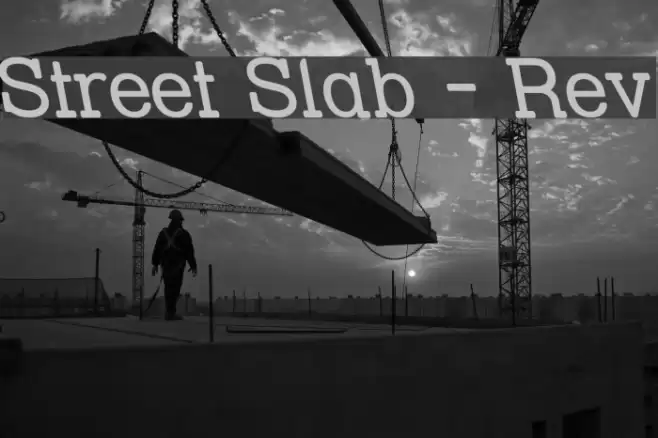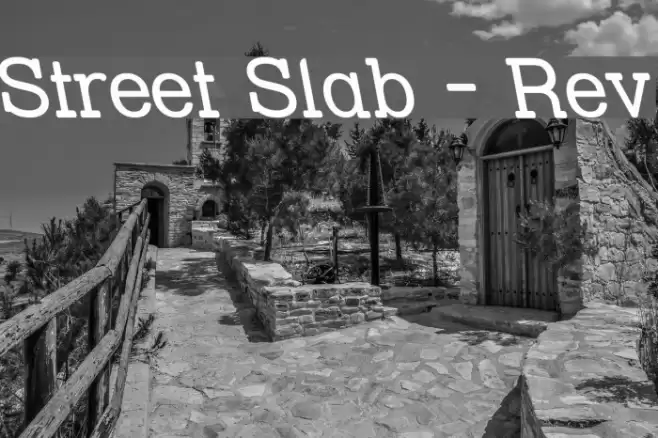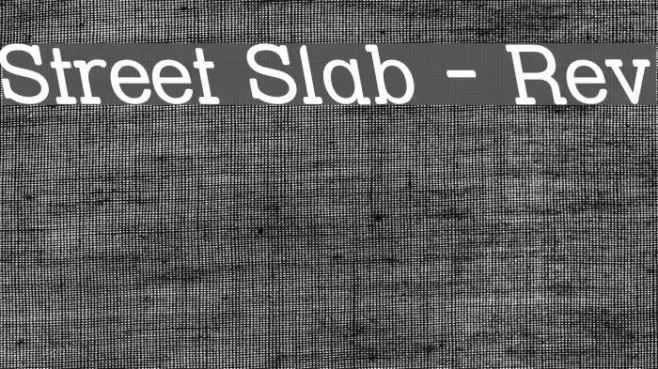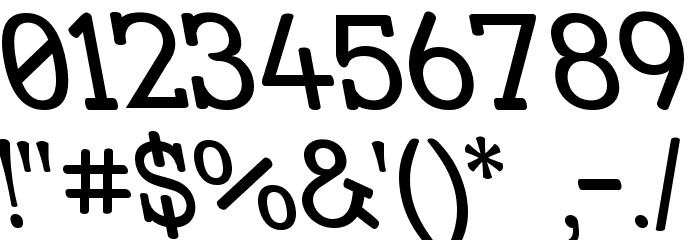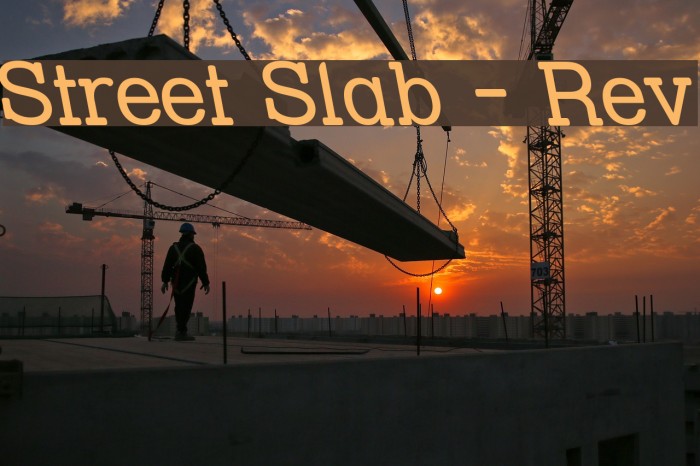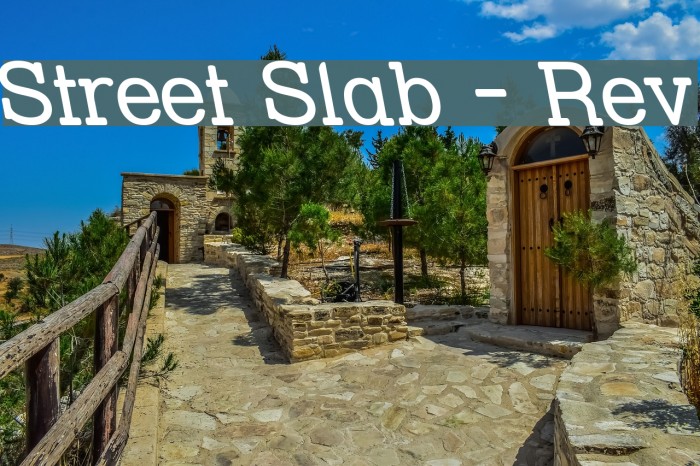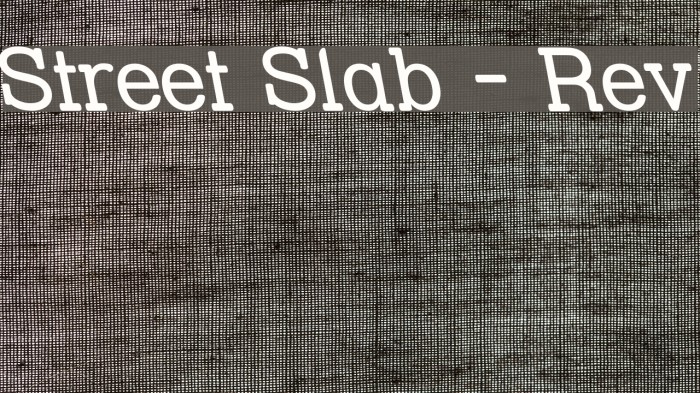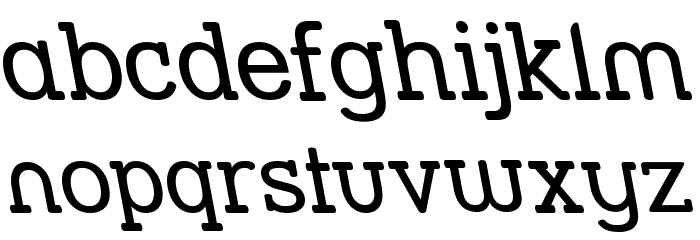
Street Slab - Rev Font
Street Slab - Rev Description
This font features a robust and bold slab serif design, characterized by thick, block-like serifs that give it a strong and authoritative presence. The letters are evenly spaced, providing a clean and organized appearance. The uppercase and lowercase letters maintain a consistent style, with rounded edges that soften the overall look. Numbers and special characters are designed with the same boldness, ensuring readability and impact. This font's style is both modern and classic, making it versatile for various design needs.
A bold slab serif font with strong, block-like serifs and rounded edges from Uncategorized fonts.
- Proposed Projects: Ideal for branding projects, headlines, posters, and signage where a strong, impactful font is needed.
- Use Case: Headlines, Logos, Signage